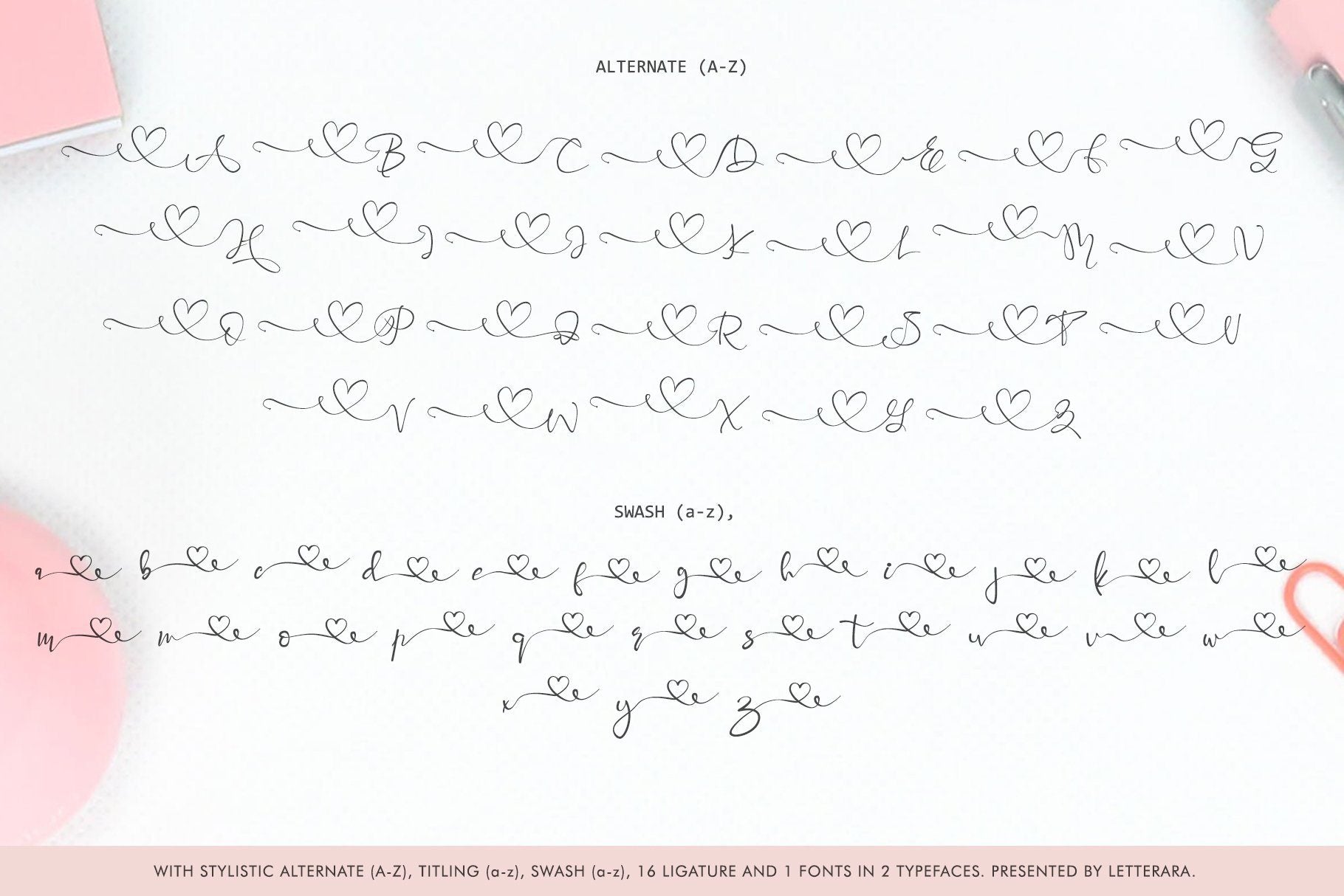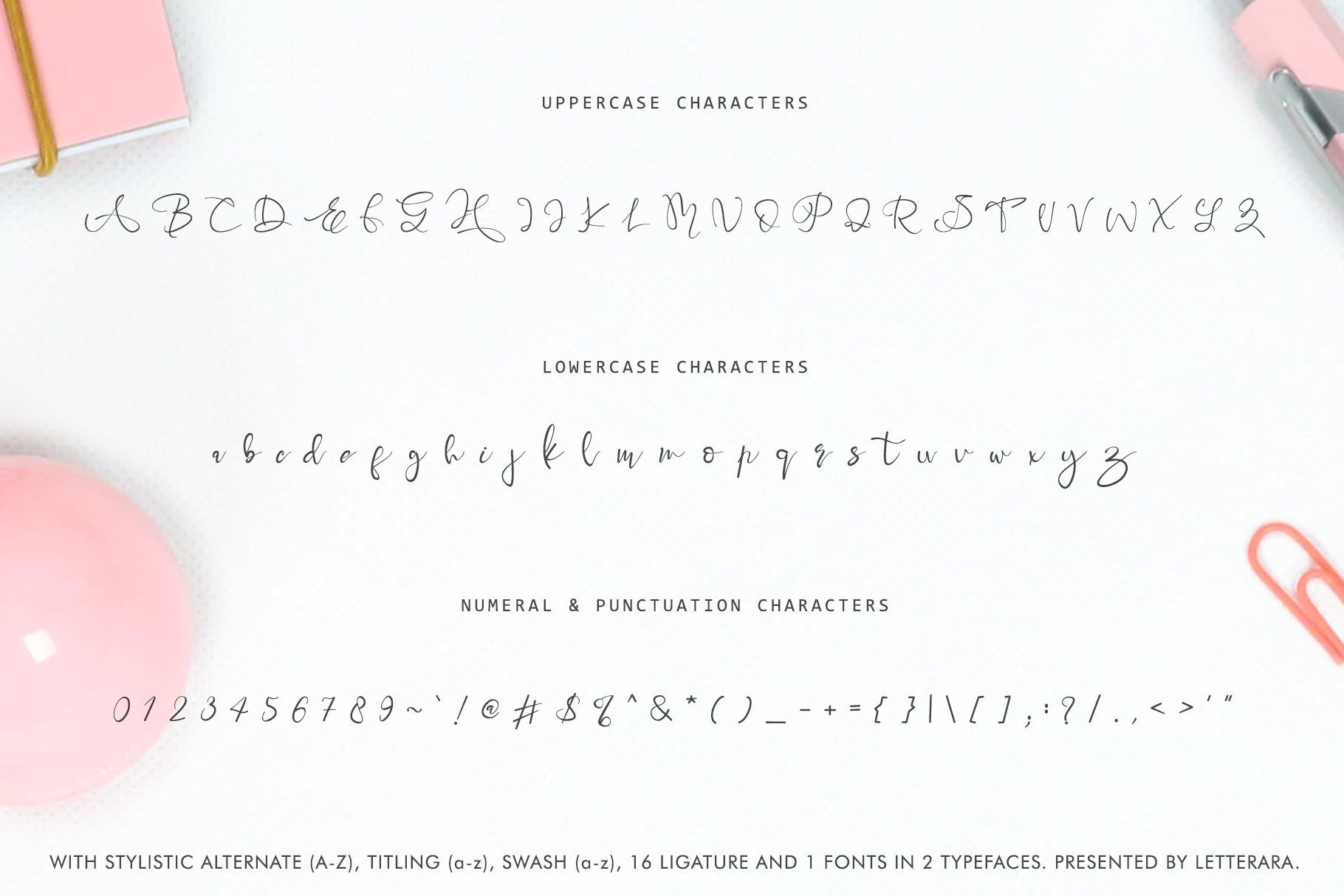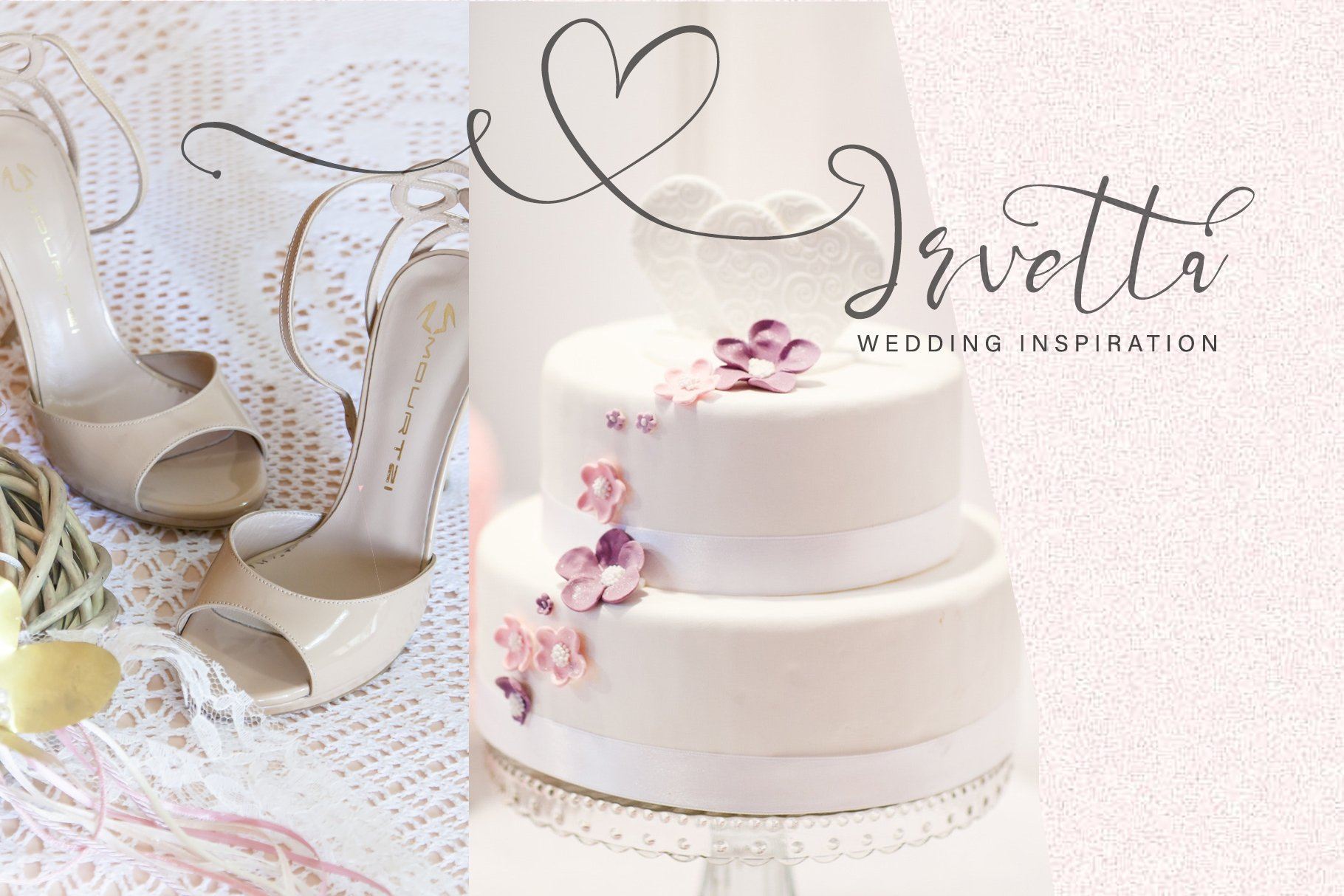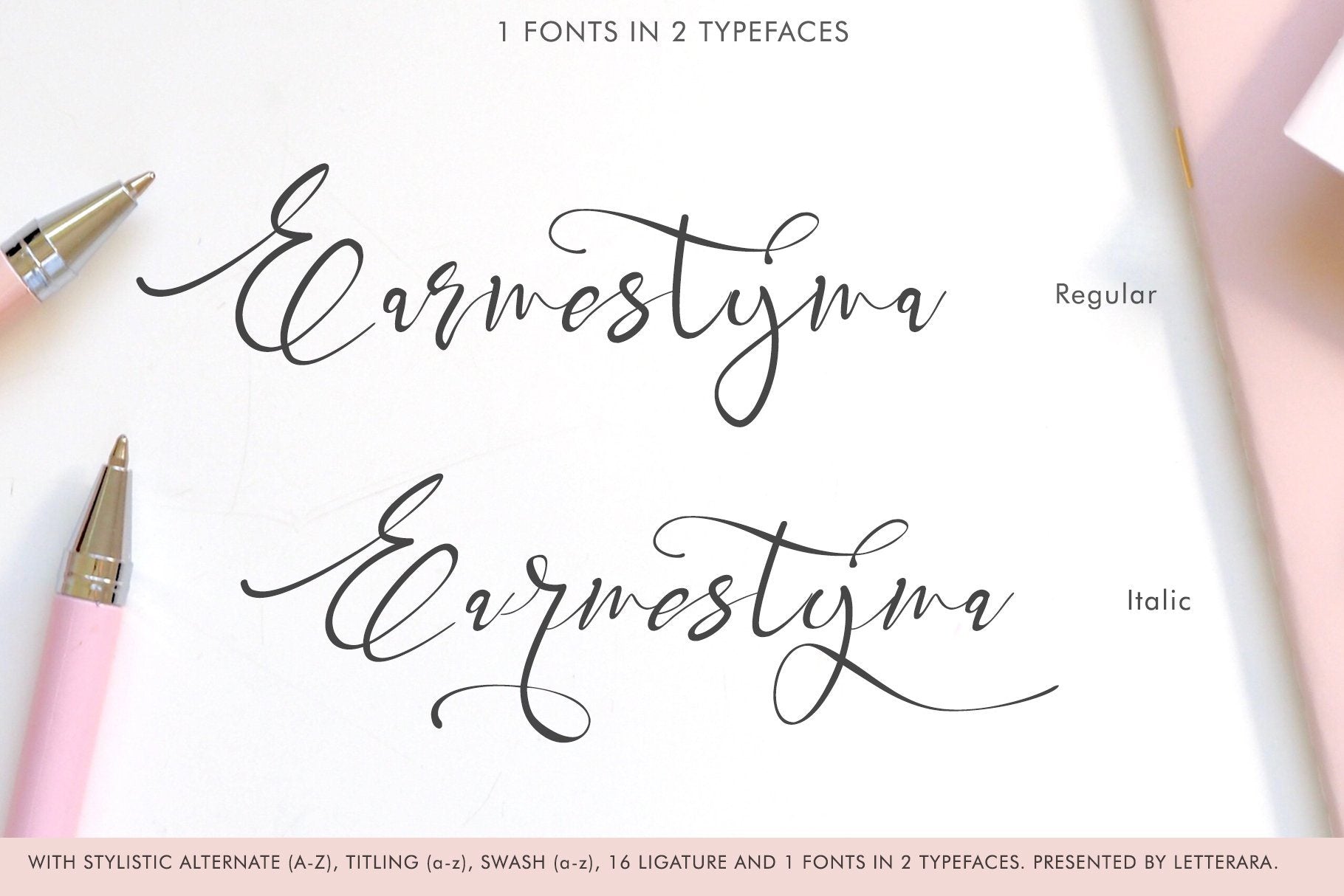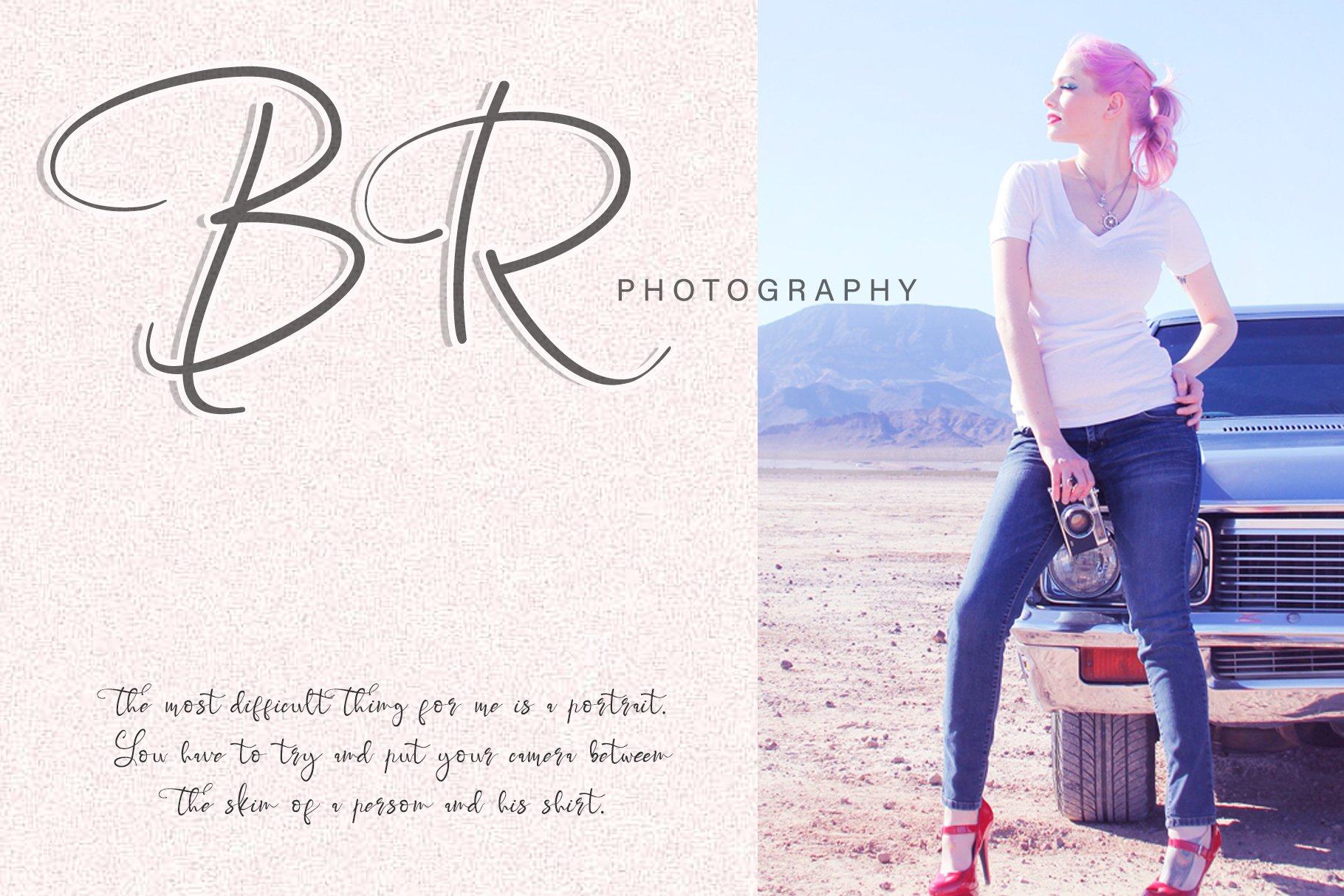
About Brigitta
Carefully designed, Brigitta is a stunning and beautiful handwritten font with a light feel. Fall in love with its delicate and sophisticated characters, and use it for any design project that requires a romantic twist. A wide range of swashes (a-z),  alternates (A-Z), titiling (a-z) and ligature  are included so that you can give your logo or name a custom, hand-calligraphy look. don’t wait anymore, put it in your shopping basket 🙂 and follow me, because there will be many promos! – Upper Case & Lowercase – Numerals – Punctuations (OpenType Standard) – Accents (Multilingual characters) – Ligatures and Alternative Style Stylistic Set – Works on PC & Mac – Simple installations – Accessible in the Adobe Illustrator, Adobe Photoshop, Adobe InDesign, even works on Microsoft Word. Our other products : BEST SELLER BLACK PINK SIGNATURE ANDORA